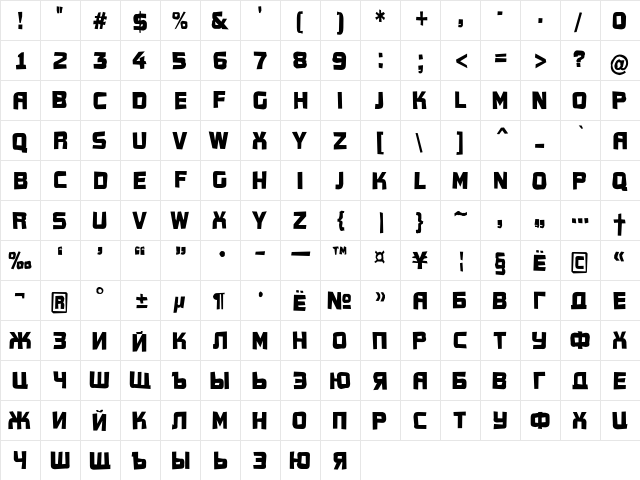
a_ConceptoTitulNrFy Regular
Design Context for a_ConceptoTitulNrFy Typeface
a_ConceptoTitulNrFy is a composed and adaptable typeface that performs quietly and consistently across a wide range of design contexts.